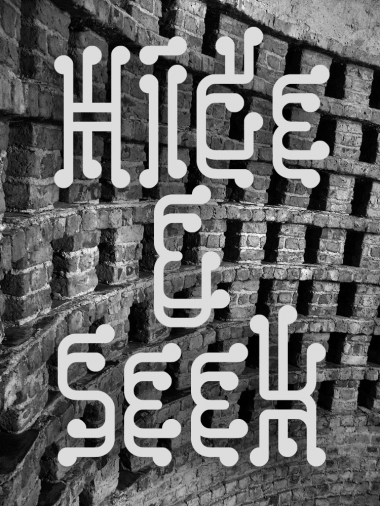
Excellent!
You're The absolute King of Ultra Modularity, the exact opposite of my approach, high creativity at the other extreme of the spectrum.... What a pity Meek is only understanding your side.... After all, i think i can understand, he has created a modular tool and i pervert it developping works which are all but modular.... Anyway, i'm still amazed how you can push modularity to the extreme and stay creative and unique in almost all your designs...
Absolutely amazing!
Fantastic!
Incredible! I love the 'circuitboard' feel. Would the crossbars on E, F, e & 3 look better if they were rounded at the tip?
I think "awesome" would just begin to describe this. :)
A very imaginative design. 10/10
great!
@ ETH: good point, I will change them asap.
@ 1saac: thanks for the sample, I couldn't have done it better. I do realise now that the font is in need of punctuation and an ampersand.
@four: Yes it needs an ampersand :)
I was five minutes looking for a repacement, till I remembered about "Et"
one of the freshest things i ever saw on fs. just great.
Very nice font! I love it!
very creative font